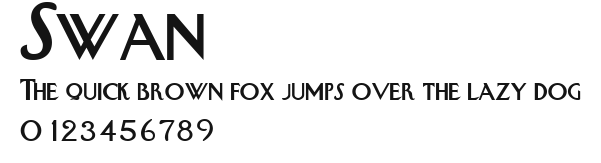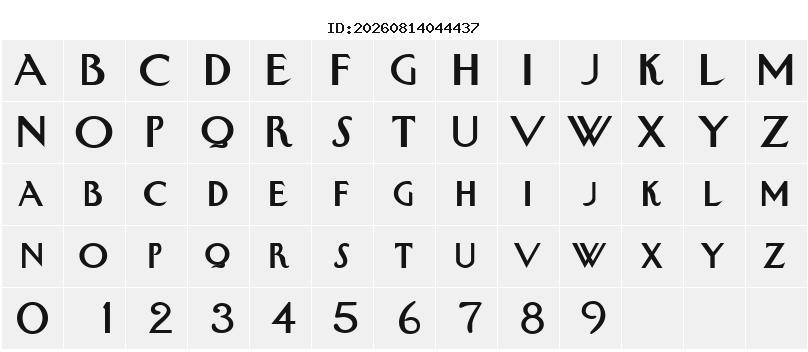
• Font Name: Swan
• Full Font Name: Swan Bold
About Swan.ttf
Swan.ttf is a modern, elegant sans-serif font designed for ultimate readability and visual harmony. Perfect for branding, headlines, web design, and print materials.